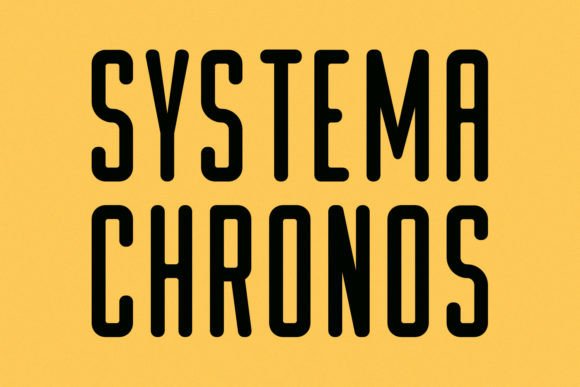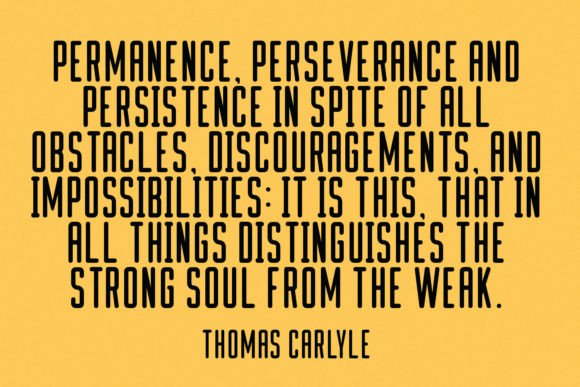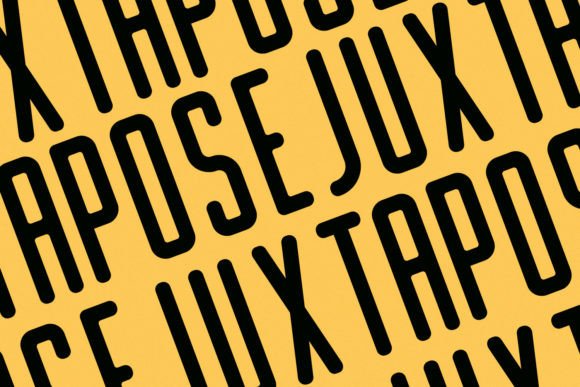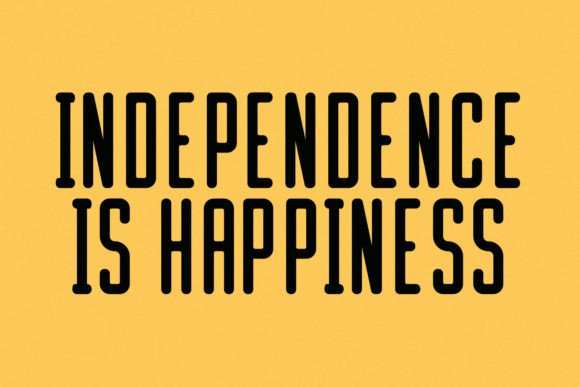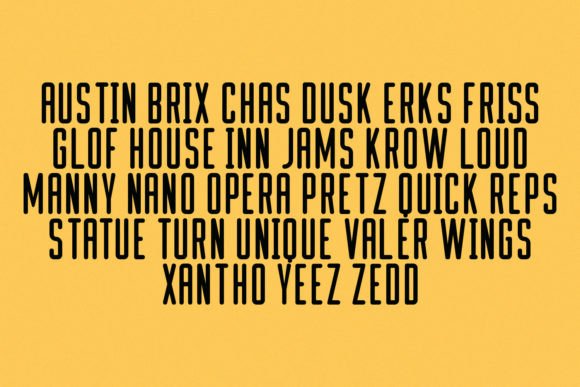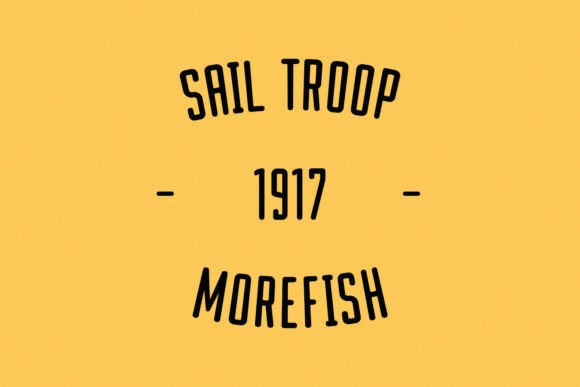
Introducing Alysse Font: The Ultimate Tech Industrial Sans Serif for Creative Projects
In the world of typography, fonts play a crucial role in conveying the tone and personality of a brand, product, or creative project. For designers and crafters looking for a unique and versatile font to elevate their work, Alysse Font is an excellent choice. This tech industrial genre sans serif font is designed to make a statement with its regular condensed stroke, fun character, and creative ligatures and alternates.
Key Features of Alysse Font
Alysse Font boasts a range of features that make it an ideal choice for various creative projects. Some of its key features include:
- Regular Condensed Stroke: Alysse Font features a regular condensed stroke that gives it a sleek and modern look, perfect for tech-related projects and industrial designs.
- Fun Character: The font has a fun and playful character that makes it suitable for creative and artistic projects.
- Ligatures and Alternates: Alysse Font comes with ligatures and alternates that provide extra creative options for designers, allowing them to experiment with different styles and effects.
Use Cases for Alysse Font
Alysse Font is a versatile font that can be used for a wide range of creative projects, including:
- Logo Design: The font’s unique character and condensed stroke make it perfect for logo design, allowing designers to create memorable and impactful logos.
- Social Media: Alysse Font is suitable for social media graphics, including posts, stories, and ads, where its fun and modern look can help grab attention.
- Movie and Book Titles: The font’s industrial and tech-inspired look makes it a great choice for movie and book titles, adding a touch of sophistication and elegance.
- Short and Long Text: Alysse Font is designed to work well for both short and long text, making it a great choice for body text, headings, and titles.
Combining Alysse Font with Other Fonts
One of the best things about Alysse Font is its versatility and compatibility with other fonts. Designers can combine Alysse Font with:
- Sans Serif Fonts: Pairing Alysse Font with other sans serif fonts creates a clean and modern look, perfect for digital and tech-related projects.
- Serif Fonts: Combining Alysse Font with serif fonts adds a touch of sophistication and elegance, making it suitable for luxury brands and high-end projects.
Tips for Getting the Most Out of Alysse Font
To make the most of Alysse Font, designers and crafters can experiment with different:
- Font Sizes: Alysse Font works well in various font sizes, from large headings to smaller body text.
- Colors: The font’s versatility allows it to work well with different colors and color schemes, from bold and bright to subtle and pastel.
- Effects: Designers can experiment with different effects, such as bolding, italicizing, and outlining, to add emphasis and create visual interest.
Alysse Font is a powerful and versatile font that can elevate any creative project. Its unique character, condensed stroke, and creative ligatures and alternates make it perfect for designers and crafters looking to add a touch of industrial chic to their work. With its wide range of use cases and compatibility with other fonts, Alysse Font is an excellent addition to any design toolkit.